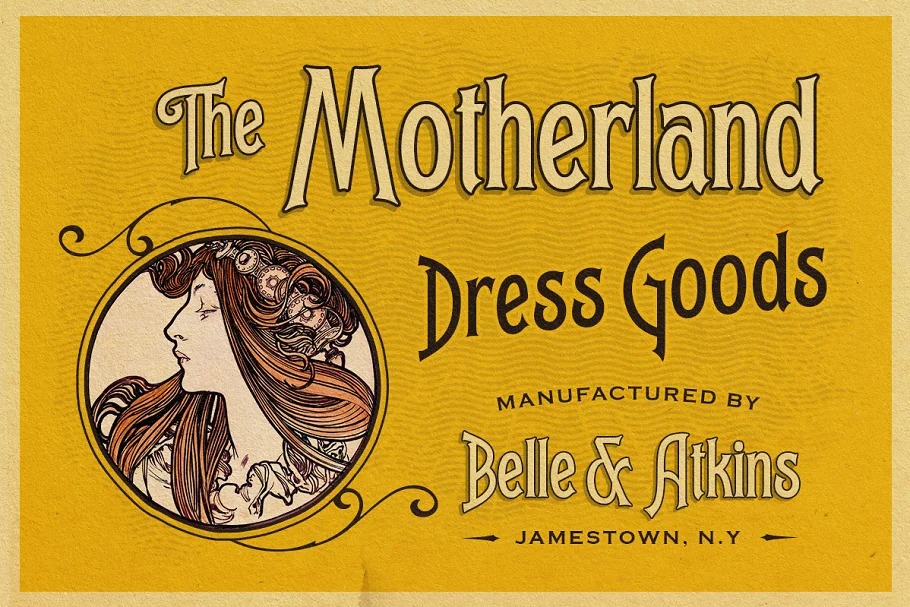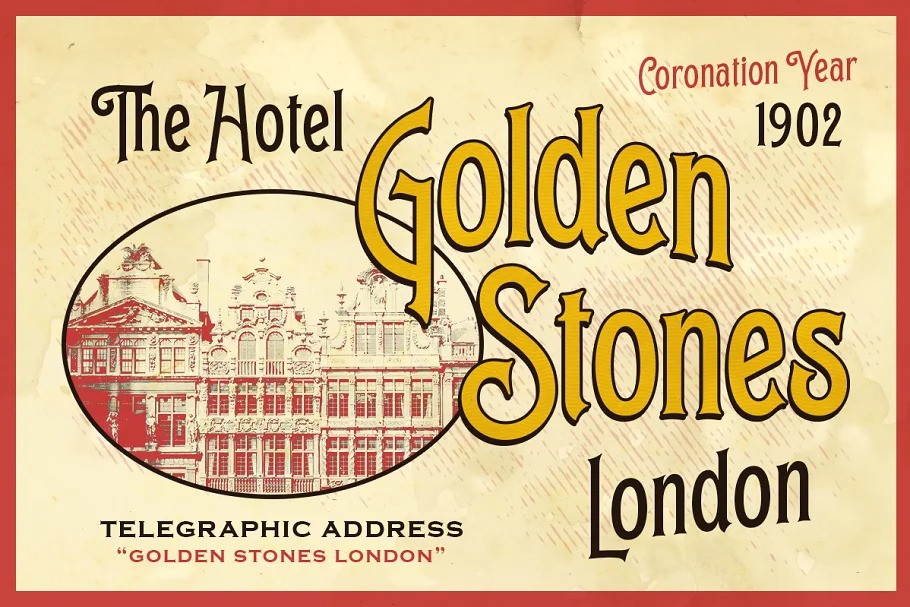
Garmouth Font
Garmouth Display Font
This is a vintage display typeface that was made by hand and inspired by classic posters. It’s designed and shared by Letterhend Studio. A unique serif with classy and classic look with vintage feel, inspired by 60s and 70s signages. This font perfectly made to be applied especially in logo, and the other various formal forms such as invitations, labels, logos, magazines, books, greeting / wedding cards, packaging, fashion, make up, stationery, novels, labels or any type of advertising purpose.